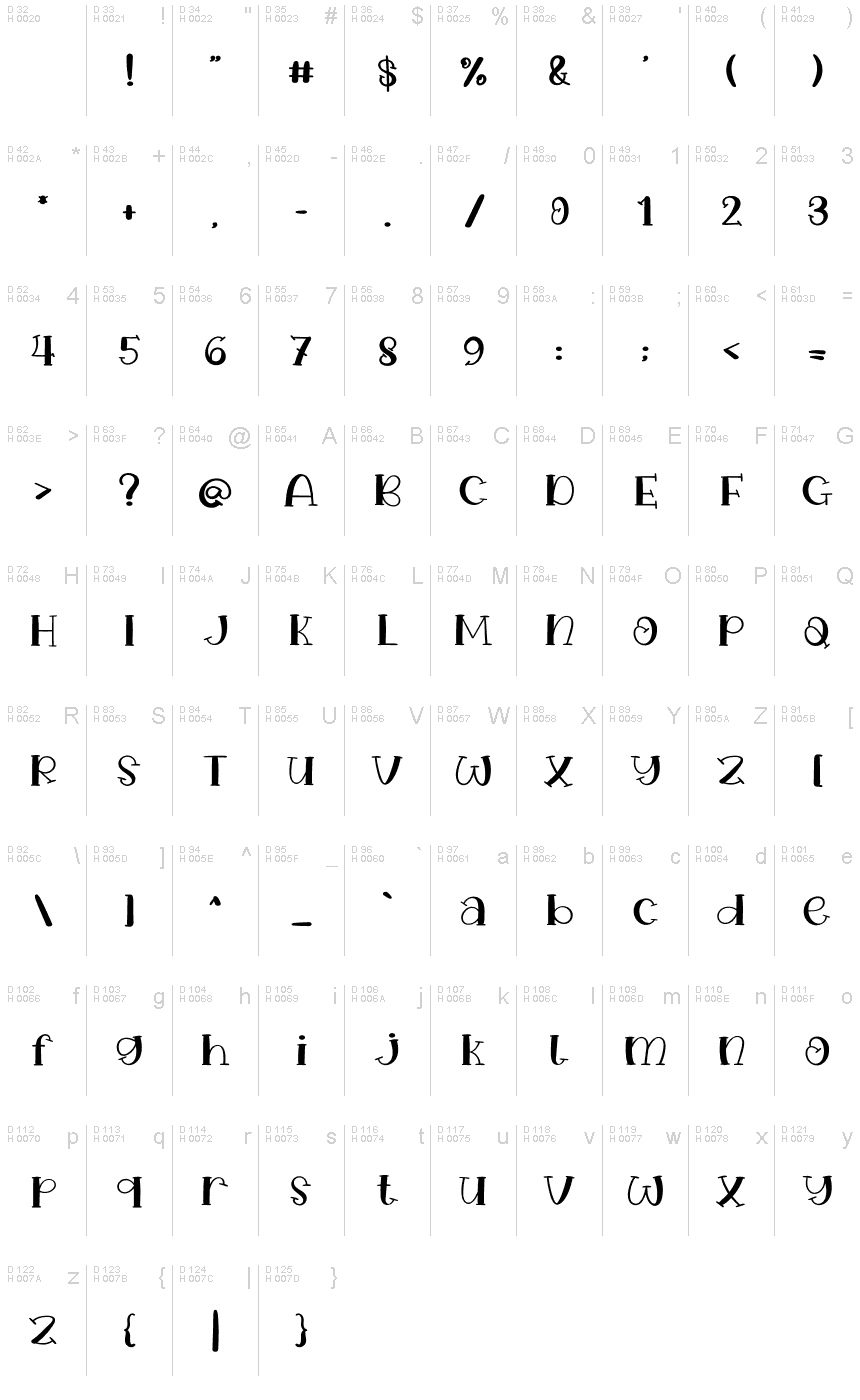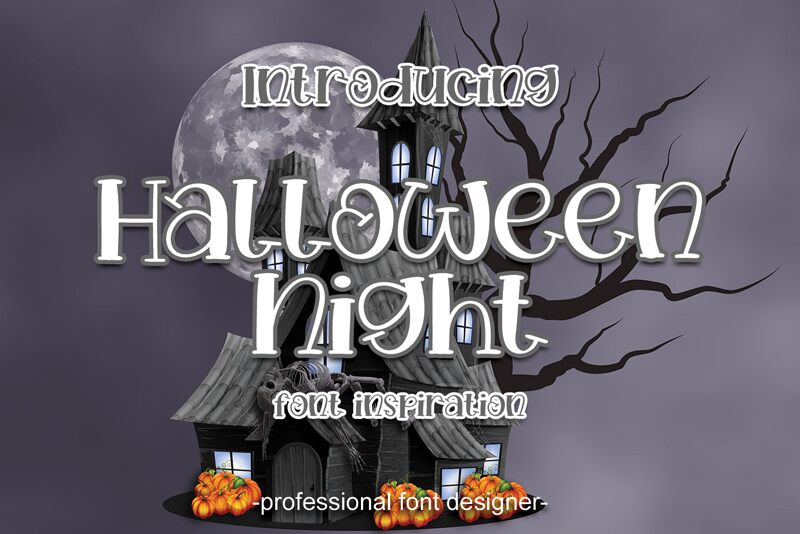
Halloween Night
Halloween Night is a cool and spooky display font designed by Luluk Surotul. No matter the topic, this font will be an incredibly asset to your fonts library, as it has the potential to elevate any creation.